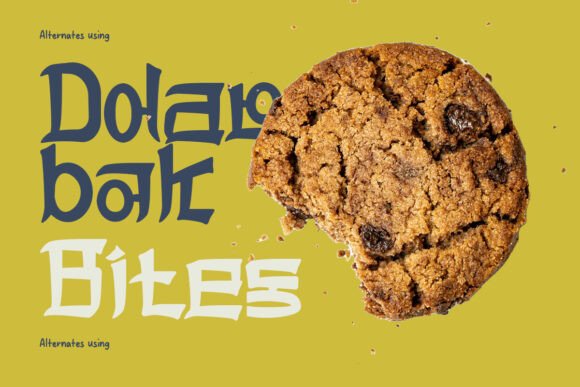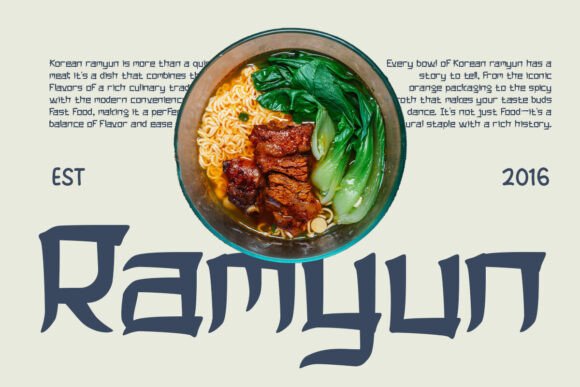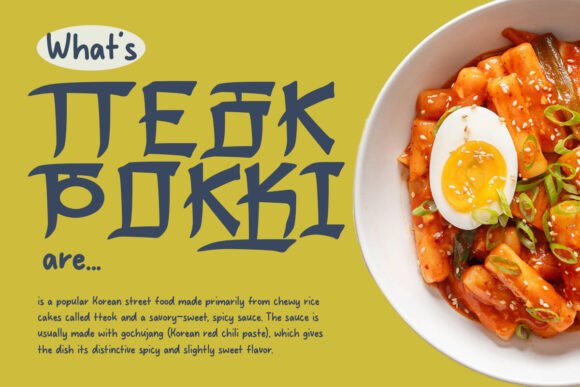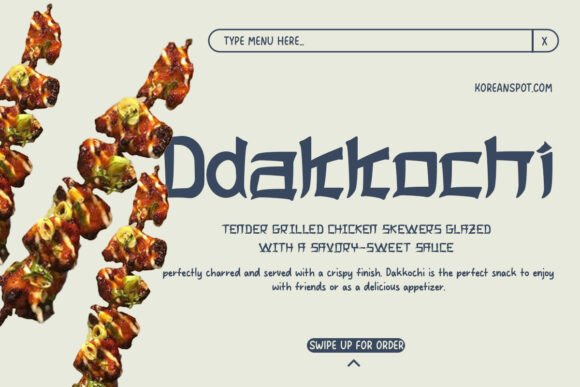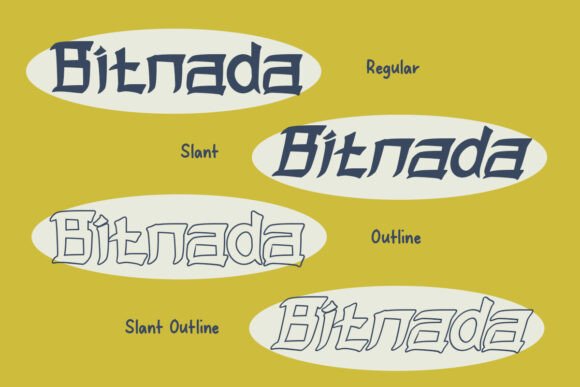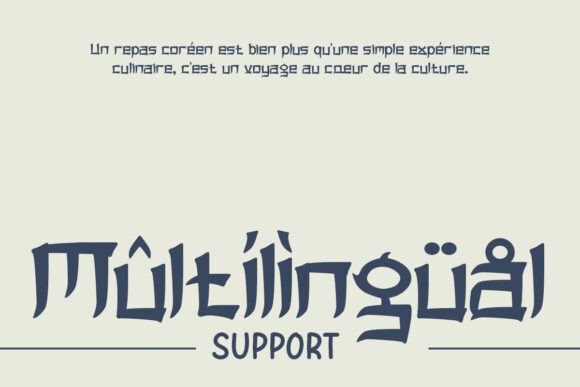
Dangeol Font: Elevate Your Designs with Korean Elegance
In the realm of typography, fonts play a pivotal role in conveying the essence and aesthetic of a design. For those seeking a unique blend of traditional and modern styles, the Dangeol font emerges as a versatile and captivating choice. This Korean-style font, available in four distinct styles—Regular, Outline, Slant, and Outline Slant—offers designers a rich palette to infuse their projects with a touch of timeless beauty and sophistication.
The Essence of Dangeol Font
Dangeol is not just a font; it’s a gateway to incorporating Korean cultural aesthetics into your designs. Its name and design resonate with the elegance and simplicity characteristic of Korean typography, making it an excellent choice for projects that aim to celebrate or evoke Korean heritage. Whether you’re crafting a logo, designing a poster, or working on a branding project, Dangeol provides the perfect blend of traditional charm and modern versatility.
Four Unique Styles for Diverse Design Needs
One of the standout features of the Dangeol font is its availability in four unique styles:
- Regular: The standard style that offers a clean and elegant look, perfect for body text and headings.
- Outline: A stylized version that features outlined characters, ideal for designs that require a bit of sophistication and uniqueness.
- Slant: Adds a dynamic touch with its slanted characters, great for emphasizing certain parts of the text or adding a playful vibe.
- Outline Slant: Combines the outlined style with a slant, providing a bold and eye-catching appearance.
This variety ensures that designers have ample creative freedom to choose the style that best suits their project’s tone and aesthetic.
Ideal for Korean-Inspired Designs
Dangeol’s design is deeply rooted in Korean typographic traditions, making it a natural fit for projects that celebrate Korean culture or require a distinctly Korean aesthetic. From bold hangul typography to elegant branding and unique lettering, Dangeol brings a level of authenticity and flair that can elevate any design.
The versatility of Dangeol extends beyond Korean-inspired designs. Its unique blend of traditional and modern elements makes it suitable for a wide array of projects, including:
- Logos and Branding: Dangeol can help brands stand out with a distinctive and memorable typographic identity.
- Posters and Flyers: Add a touch of elegance and sophistication to your promotional materials.
- Cultural Themes: For projects that explore or celebrate cultural heritage, Dangeol offers a typographic solution that is both authentic and visually appealing.
- Creative Projects: Whether you’re working on a personal art project or a professional design endeavor, Dangeol’s unique styles can inspire creativity and add depth to your work.
Why Choose Dangeol Font?
Choosing Dangeol for your design projects comes with several advantages:
- Timeless Beauty: Dangeol’s design ensures that your projects have a lasting appeal, unaffected by fleeting trends.
- Sophistication: The font’s elegant lines and traditional roots lend a level of sophistication to any design.
- Versatility: With four styles to choose from, Dangeol can adapt to the needs of a wide range of projects.
- Cultural Significance: For projects with a Korean theme or inspiration, Dangeol offers an authentic typographic solution.
Dangeol font stands out as a versatile and elegant choice for designers looking to infuse their projects with a blend of traditional Korean aesthetics and modern typographic appeal. Its four unique styles offer a range of creative possibilities, making it perfect for a variety of design needs. Whether you’re aiming to create bold hangul typography, elegant branding, unique lettering, or simply looking for a font that adds a touch of timeless beauty and sophistication, Dangeol is an excellent choice. Explore the creative potential of Dangeol and elevate your designs with the elegance of Korean typography.